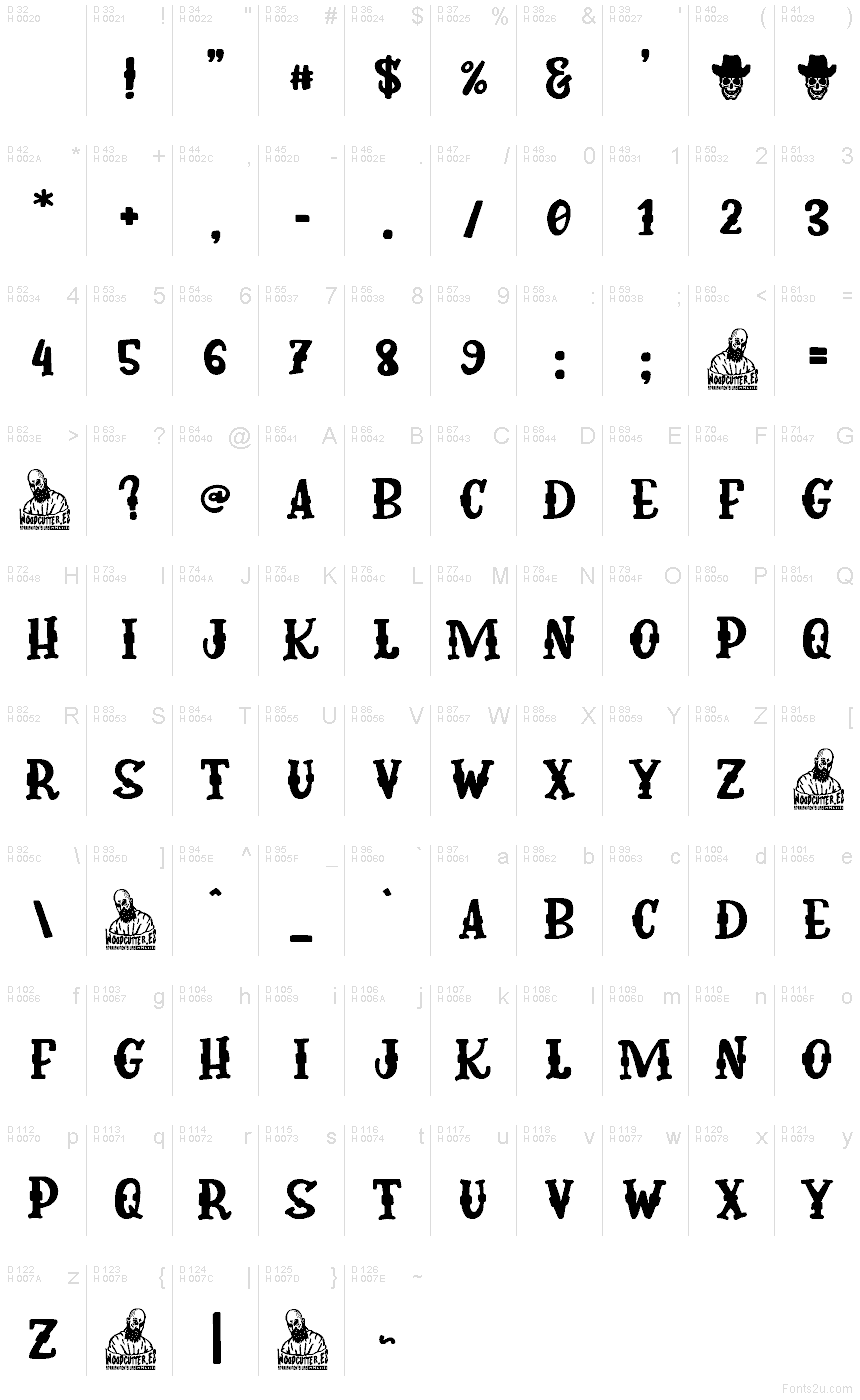
Doctor Western
Doctor Western font by Woodcutter is a display font with a rugged vintage style and blocky structure. Its decorative appearance is reminiscent of western typography and cartoonish texts. Looking impactful and bulky, the letters feature intriguing elements such as double outlines inside the characters.
Use this free font in impactful title design, branding projects, advertisements, quotes, social media posts, greeting cards, and more. Use it also in magazine covers’ text or short content paragraphs where needed.